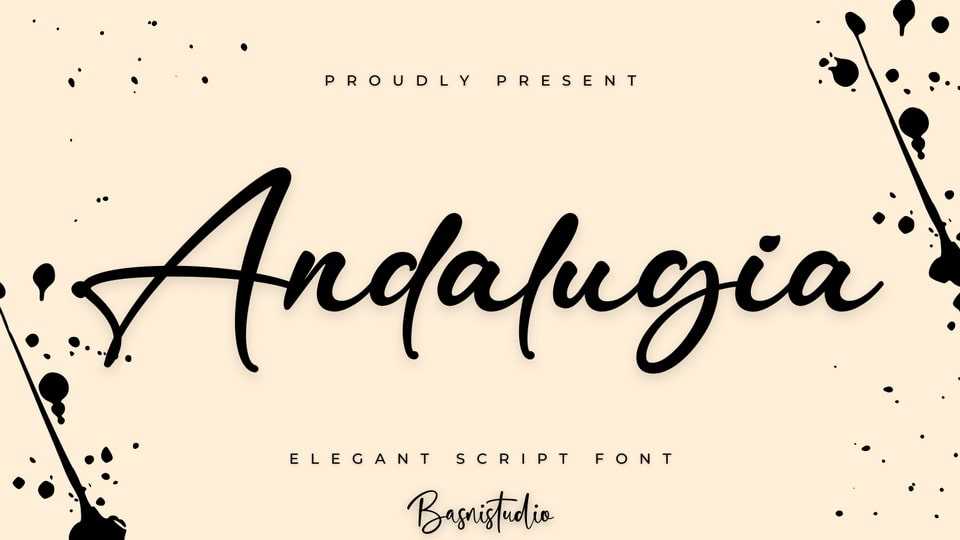
Download Andalugia font, a stylish script typeface that adds a elegant, versatile touch to everything from branding and social media to invitations and packaging.